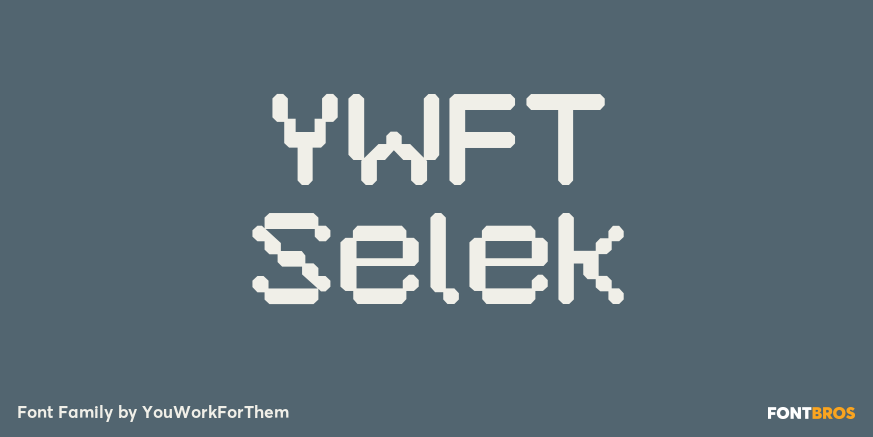
YWFT Selek
About YWFT Selek
For striking, stylishly modern design, Selek(t) something incredible. (See what we did there?) YWFT Selek was designed with the idea of bringing a softer touch to machine-like letterforms, with the final result falling between mechanical and electronic.…